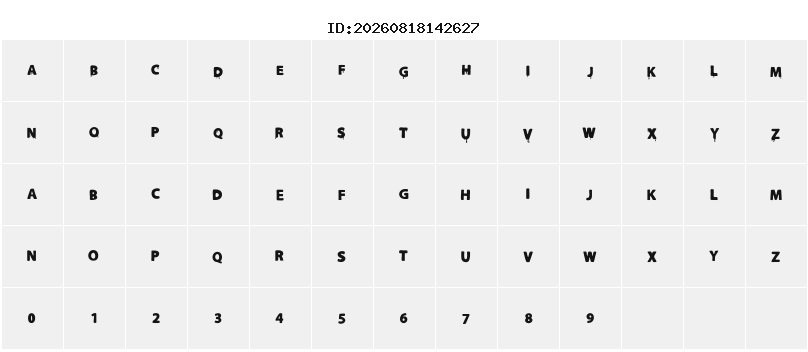
Slutotronic Preview
• Font Name: Slutotronic
• Designer: Fabian Pfeifhofer (loodydesign.com)
About Slutotronic.ttf
Slutotronic.ttf is a modern, elegant sans-serif font designed for ultimate readability and visual harmony. Perfect for branding, headlines, web design, and print materials.